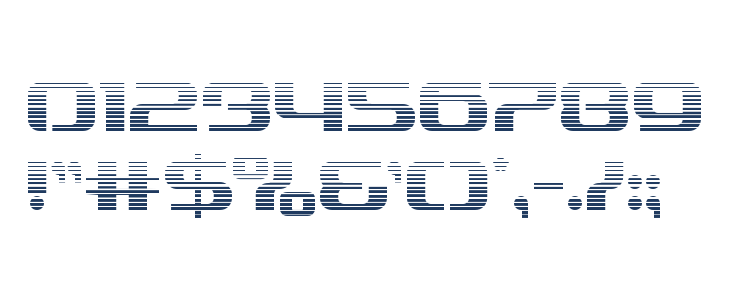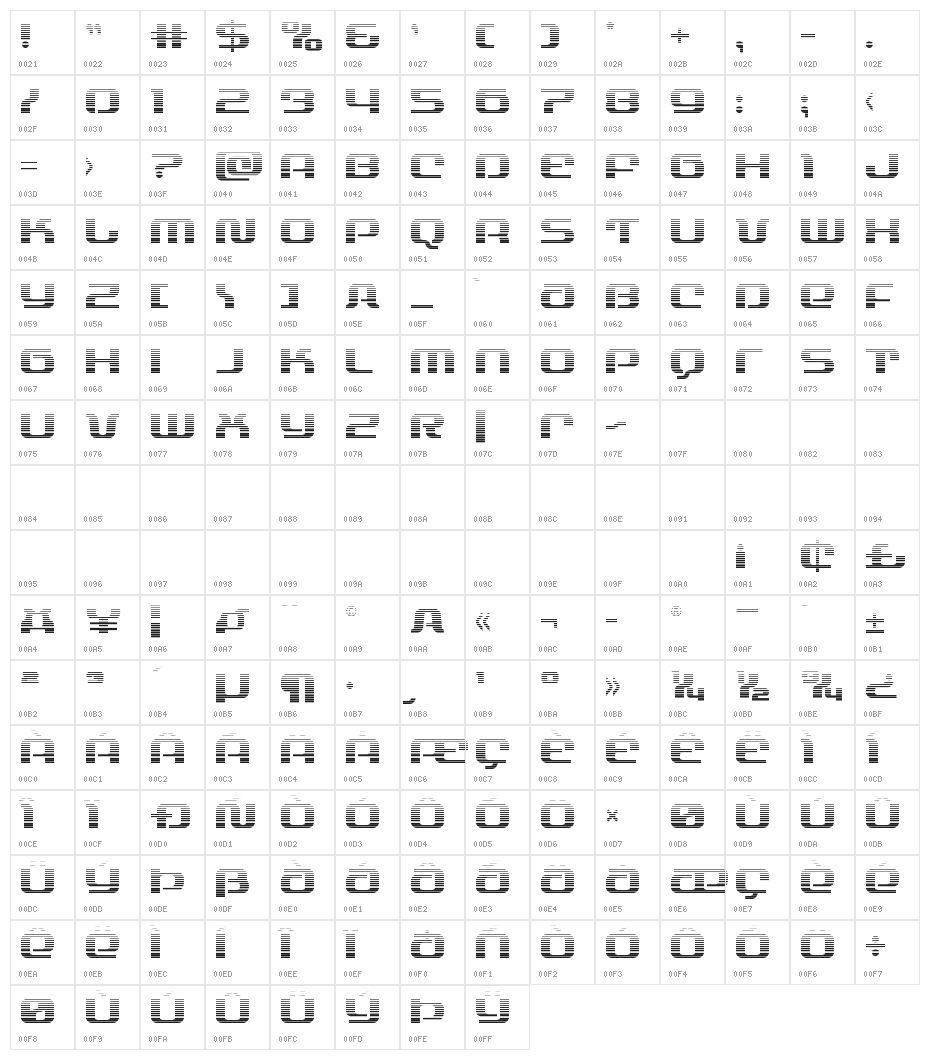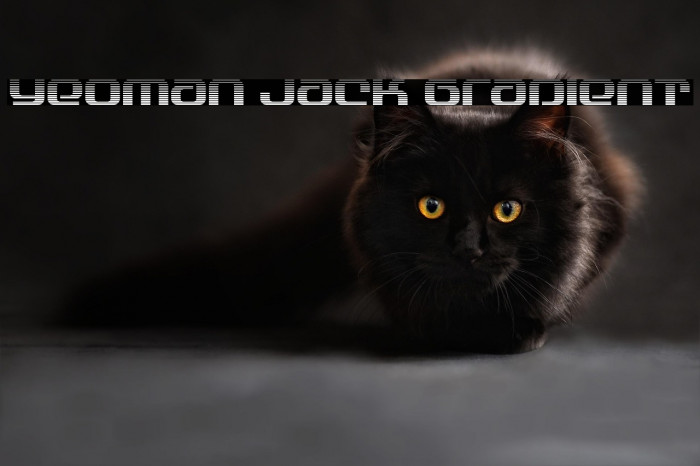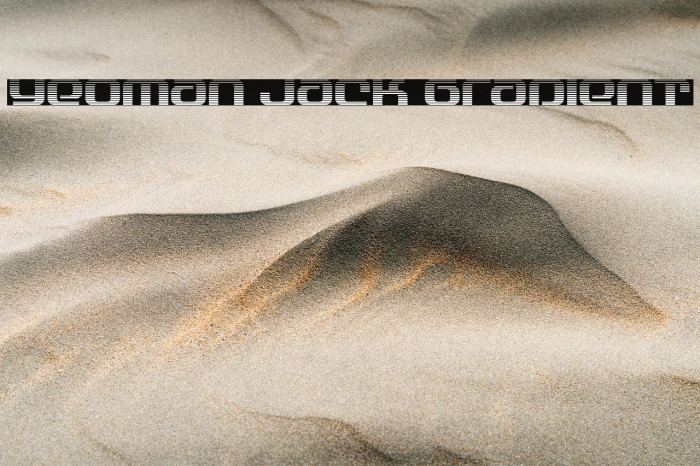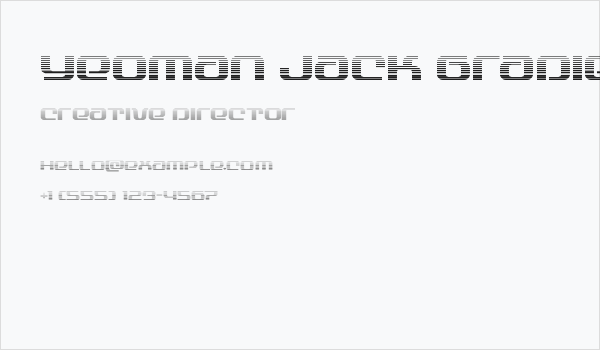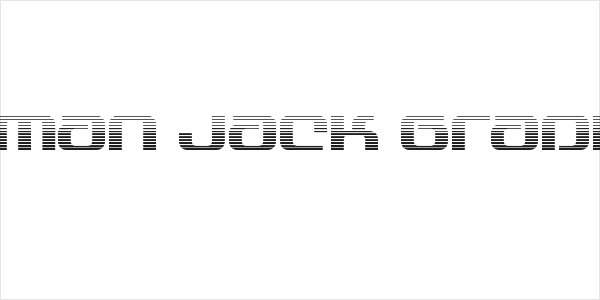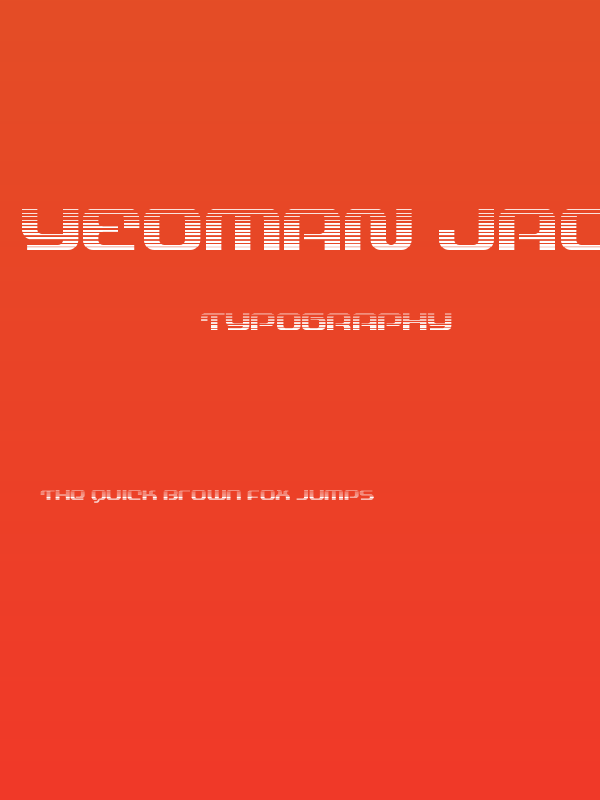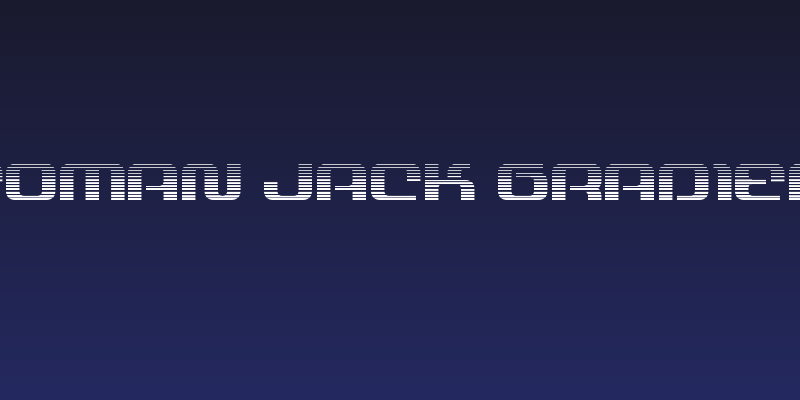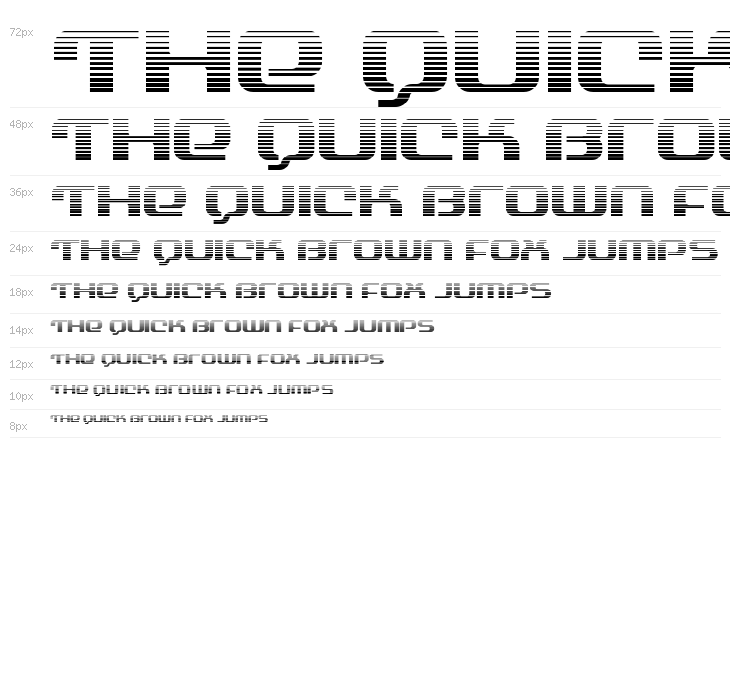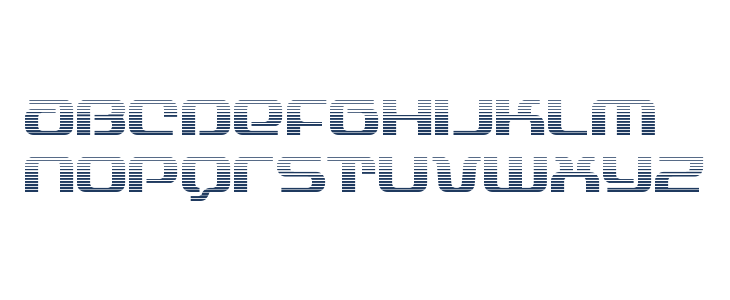
Yeoman Jack Gradient Font
Yeoman Jack Gradient Description
This font features a unique striped pattern that gives it a futuristic and digital appearance. Each character is composed of horizontal lines that create a gradient-like effect, adding depth and visual interest. The uppercase and lowercase letters maintain a consistent style, with clean, geometric shapes that are slightly condensed. The numbers and special characters follow the same design principles, ensuring uniformity across the entire character set. This font's distinct style makes it stand out, making it ideal for projects that require a modern and tech-savvy look.
| Proposed Projects | Ideal for tech branding, digital media, futuristic posters, and sci-fi themed designs. |